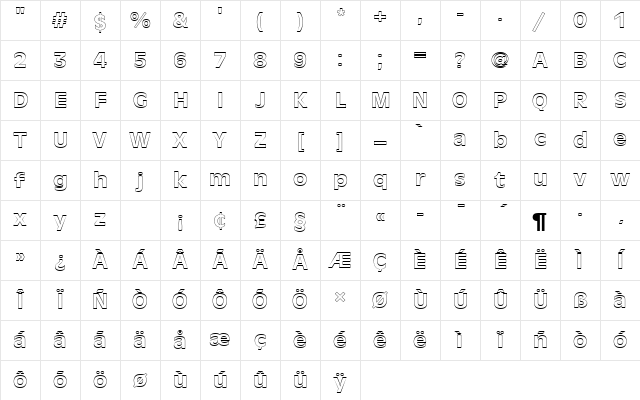
AntiqueOliTMedOu1 Regular
Design Context for AntiqueOliTMedOu1
AntiqueOliTMedOu1 wears its vintage influences proudly, with letterforms that recall mid-century signage, classic packaging, and nostalgia-driven design.
Font Pairing: Combine AntiqueOliTMedOu1 with a simple slab or neutral sans - period-accurate companions reinforce the vintage feel without competing for attention.
Pro Tip: Lean into AntiqueOliTMedOu1's period character by pairing it with aged paper textures, muted colour palettes, and vintage illustration styles.